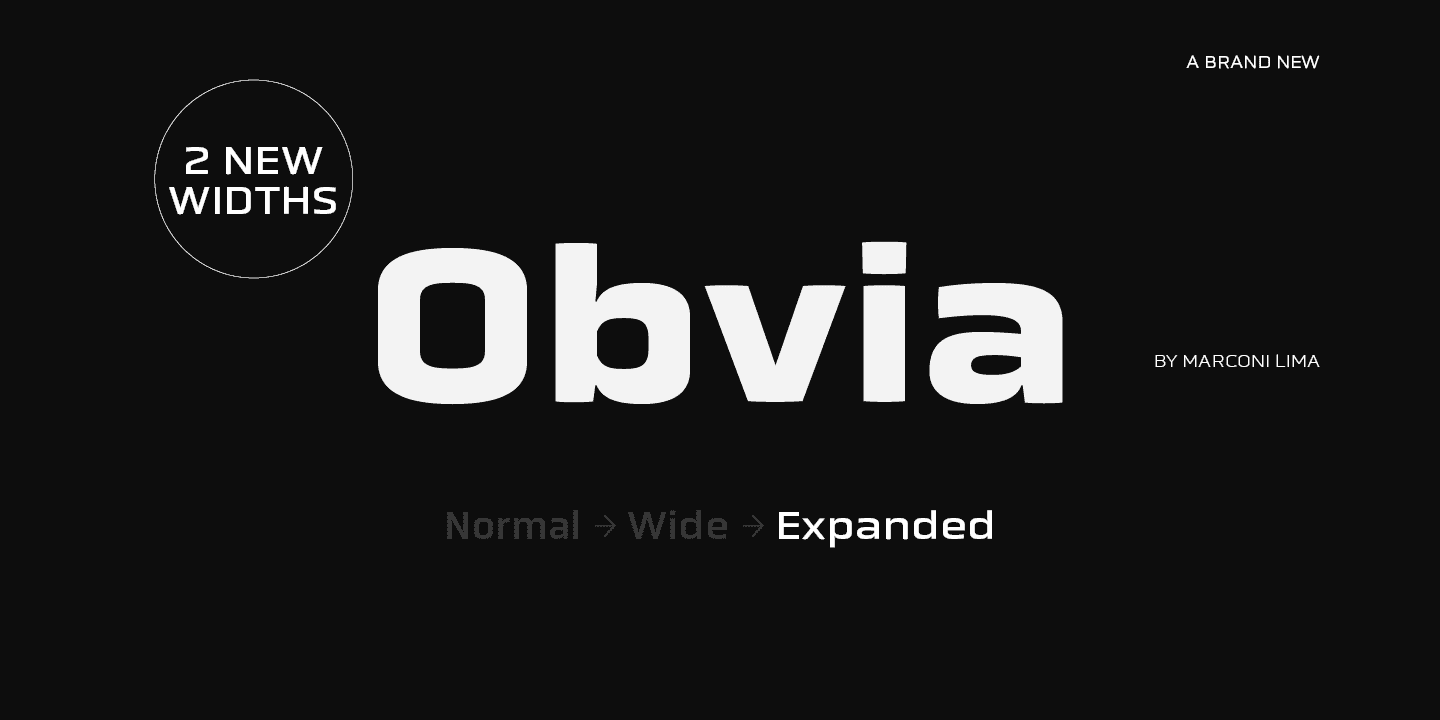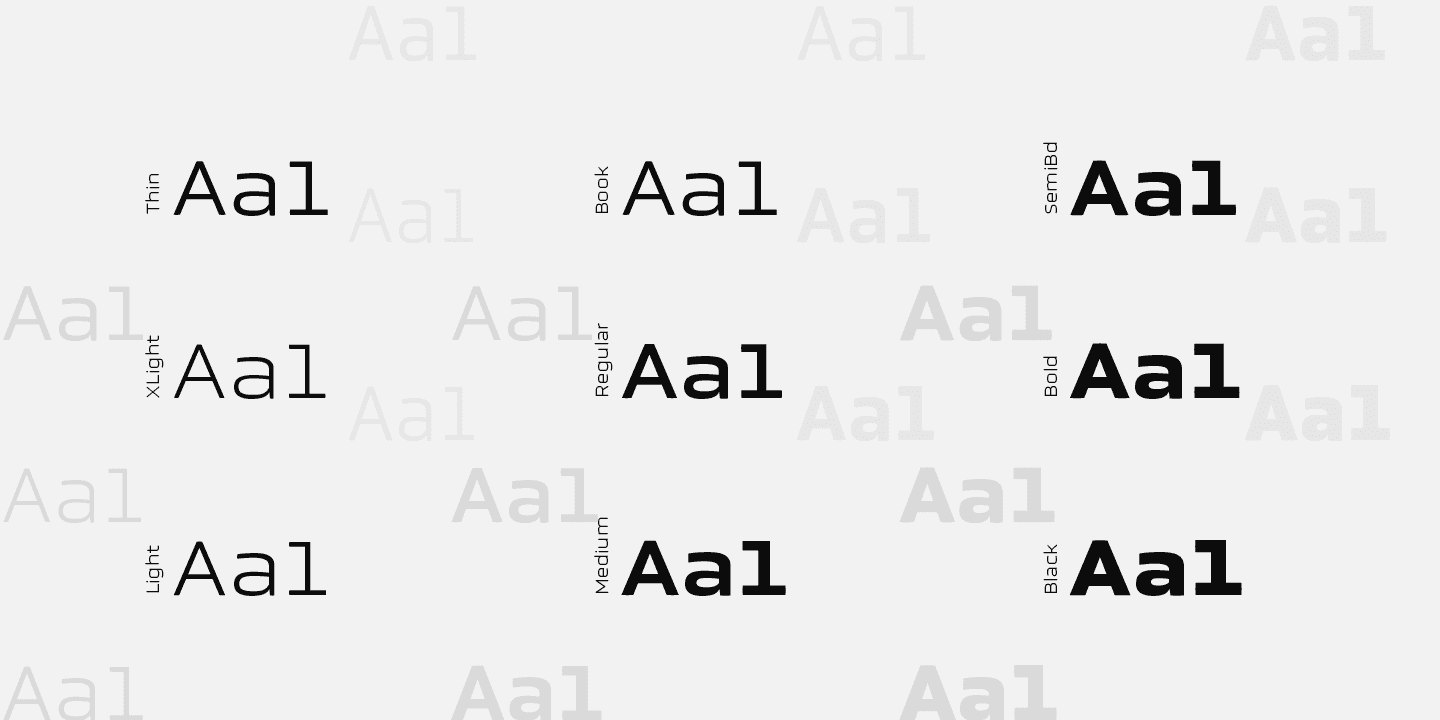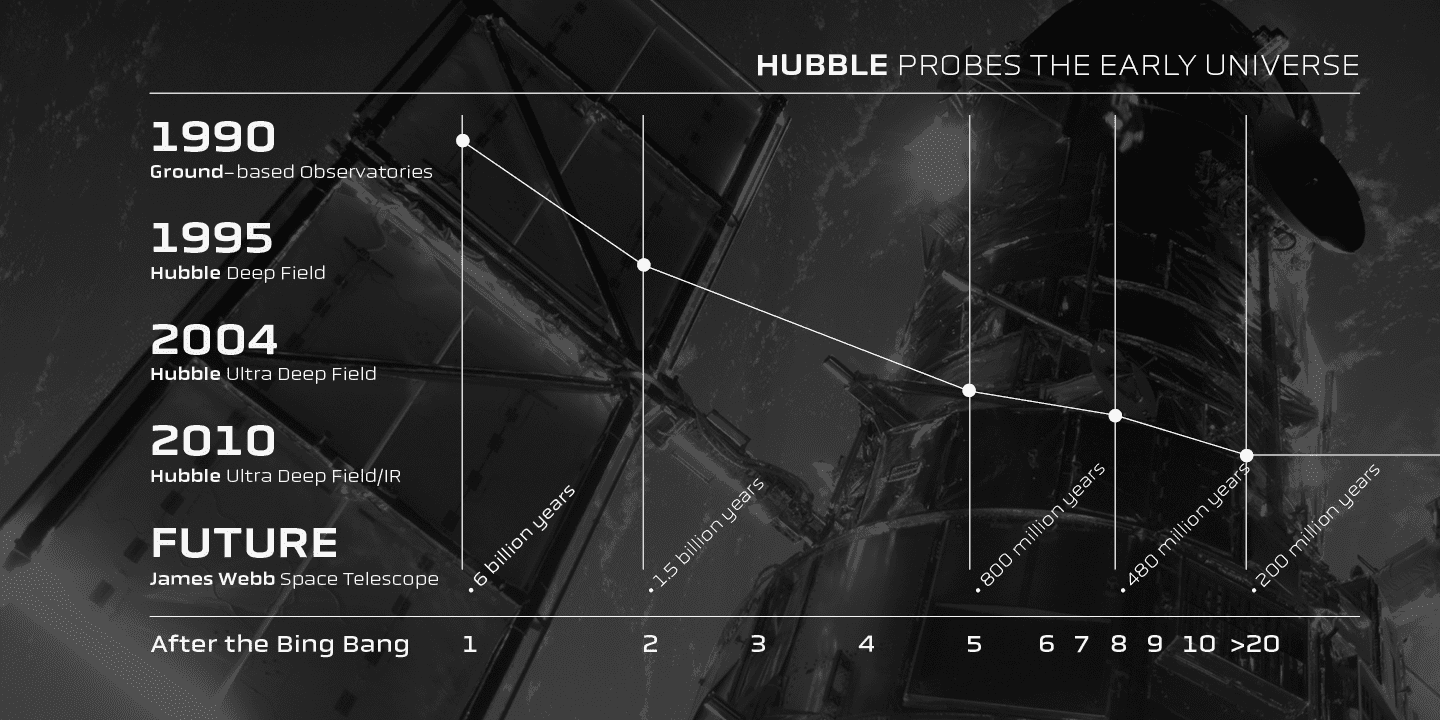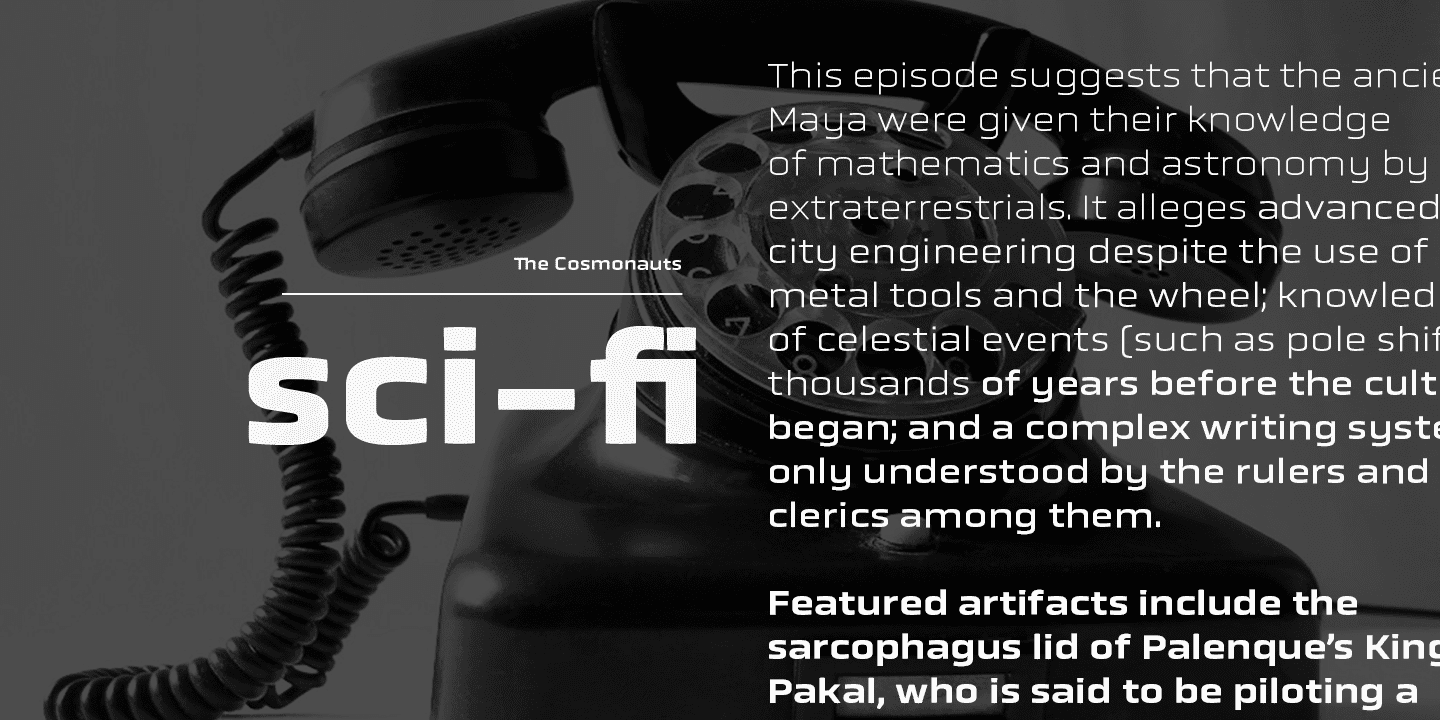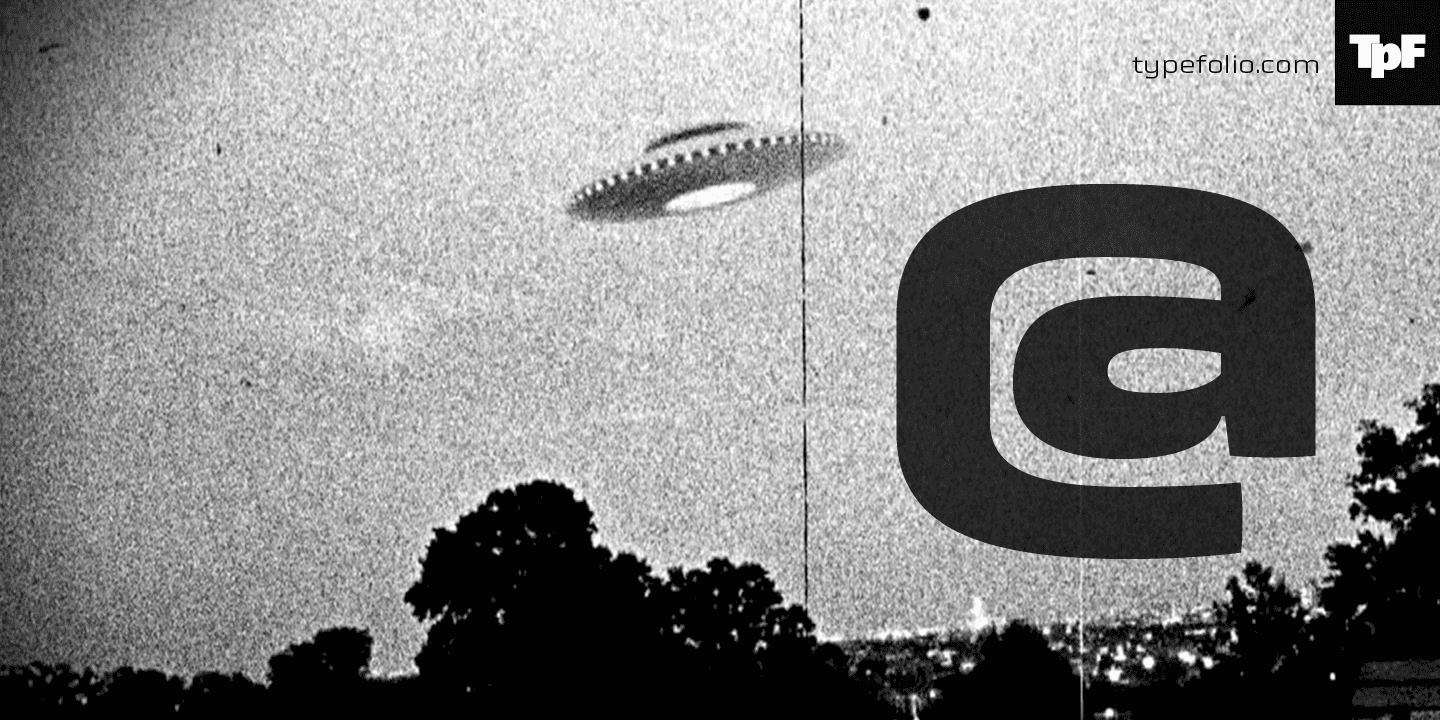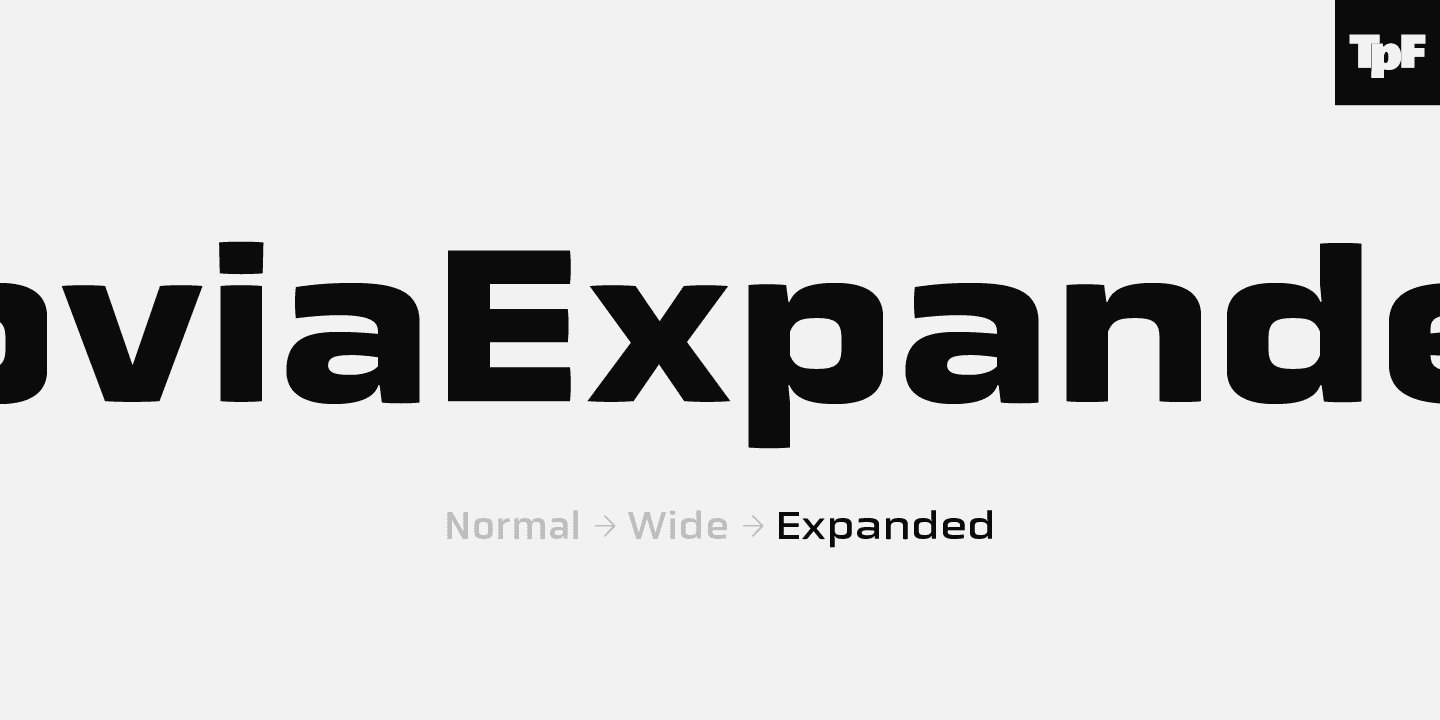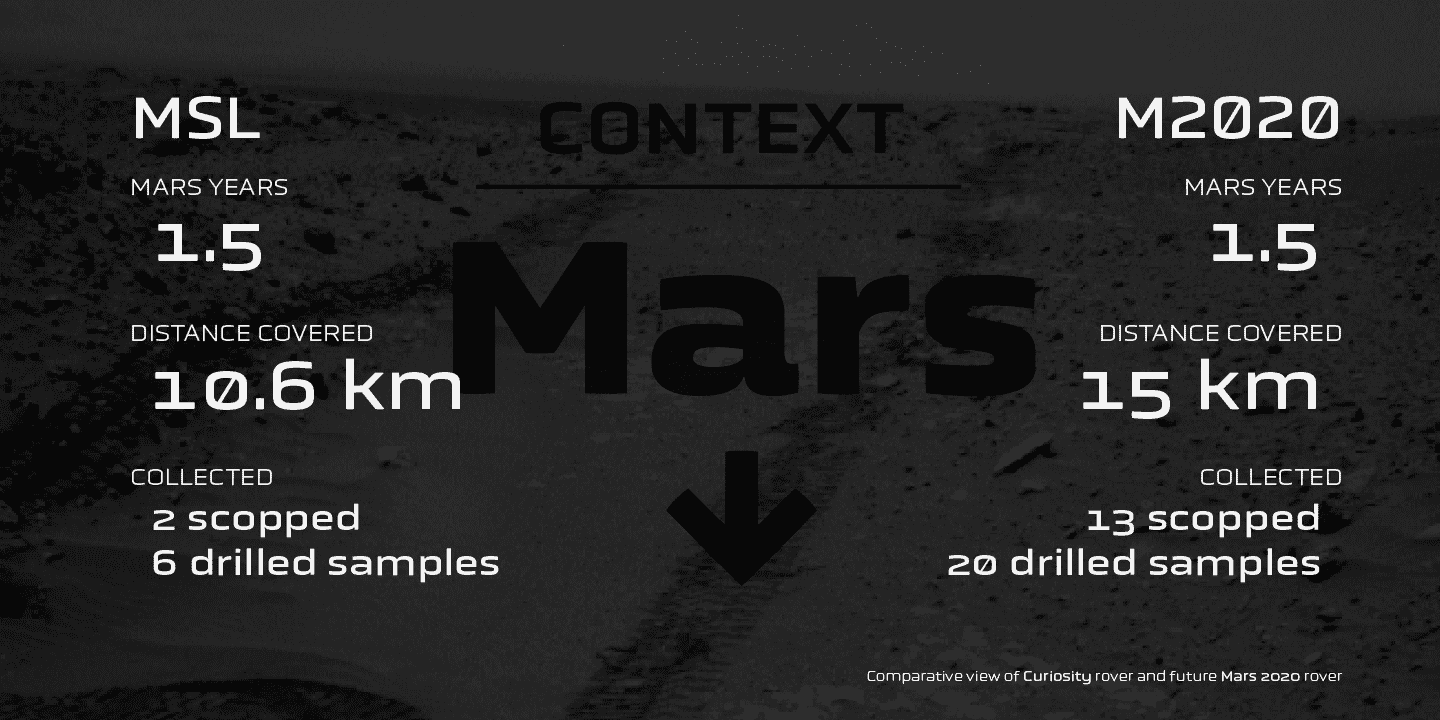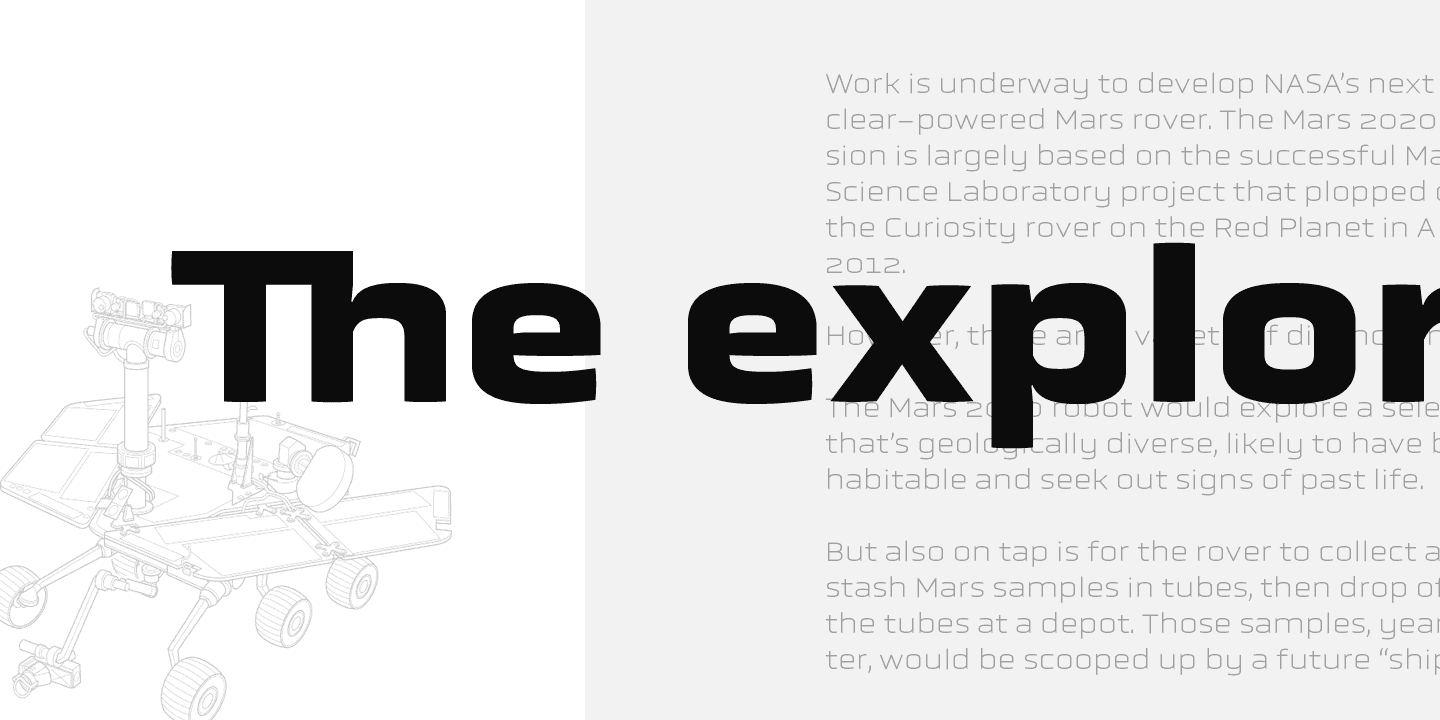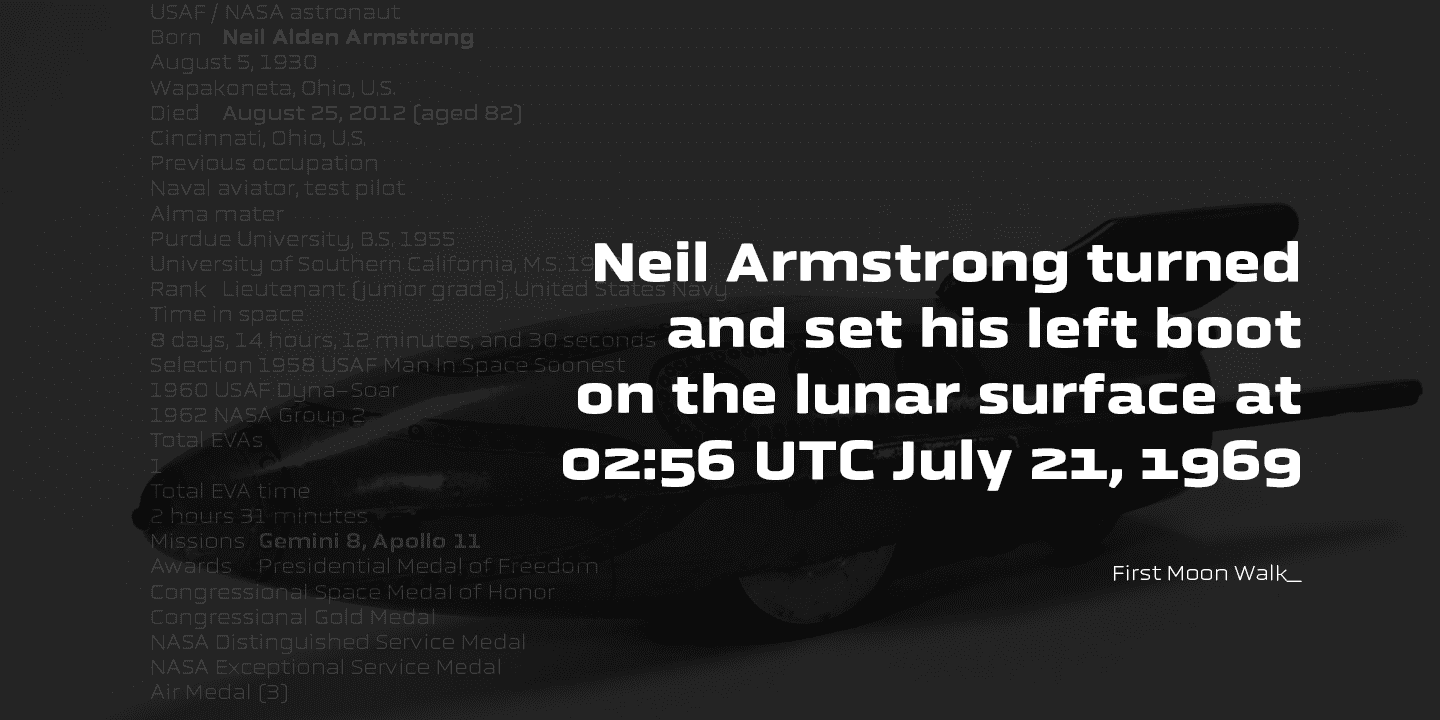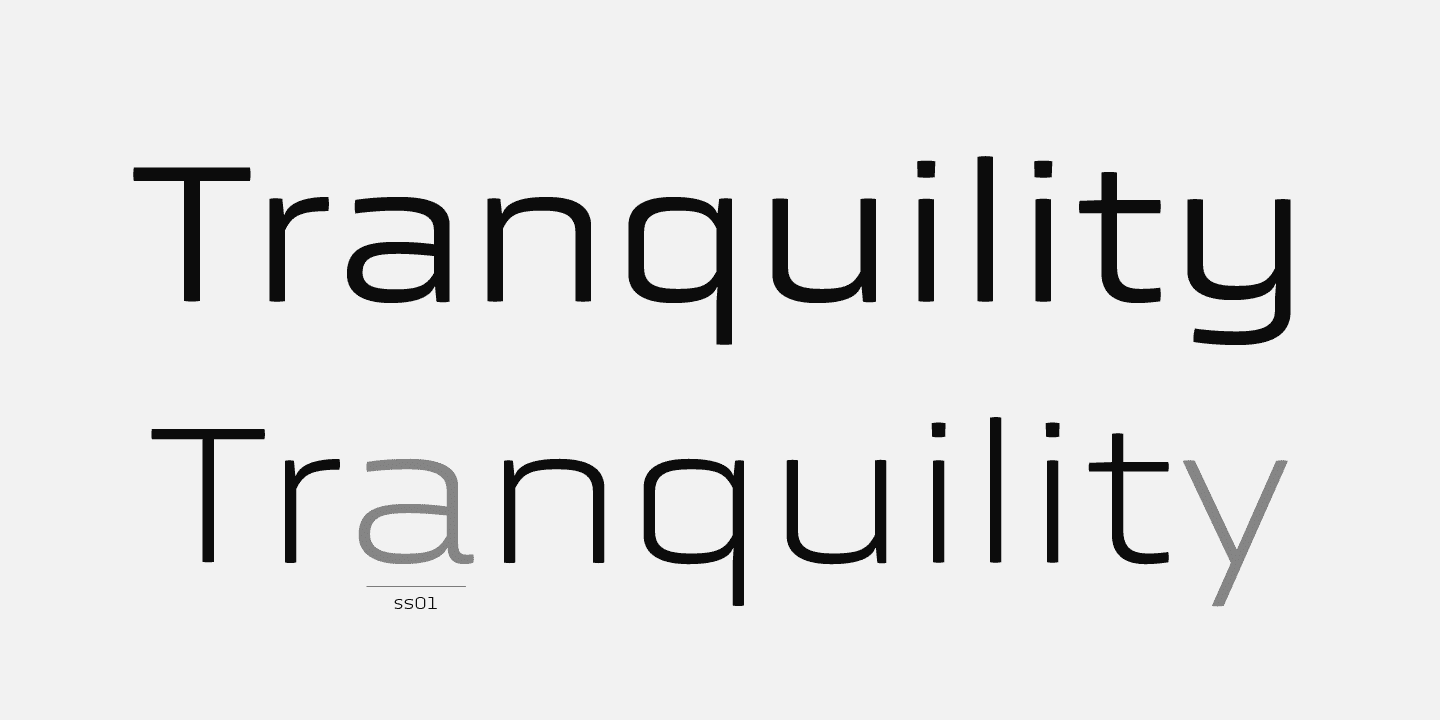
Obvia Expanded Family (9 fonts)
Obvia, a geohumanist for all media.
'Obvia' appeared as a result of direct observation on typefaces classified as geometric and the plan to explore for the first time width axes Condensed, Narrow (soon), Normal and new Wide and Expanded. The idea behind 'Obvia's design was to create a distancing from geometrically pure shapes, in this case, square shapes. Then some details were added, such as subtle inktraps, concave endings of the stems and carefully drawn alternate characters, giving a 'geohumanist' tone to the font. This first family of 'Obvia' has 9 weights ranging from Thin to Black, delivering a strong typographic identity, from the paper to the pixel.
OpenType features: Old-style Digits, Ligatures, Discretionary Ligatures, Alternates, Contextual Alternates, Superscript, Subscript